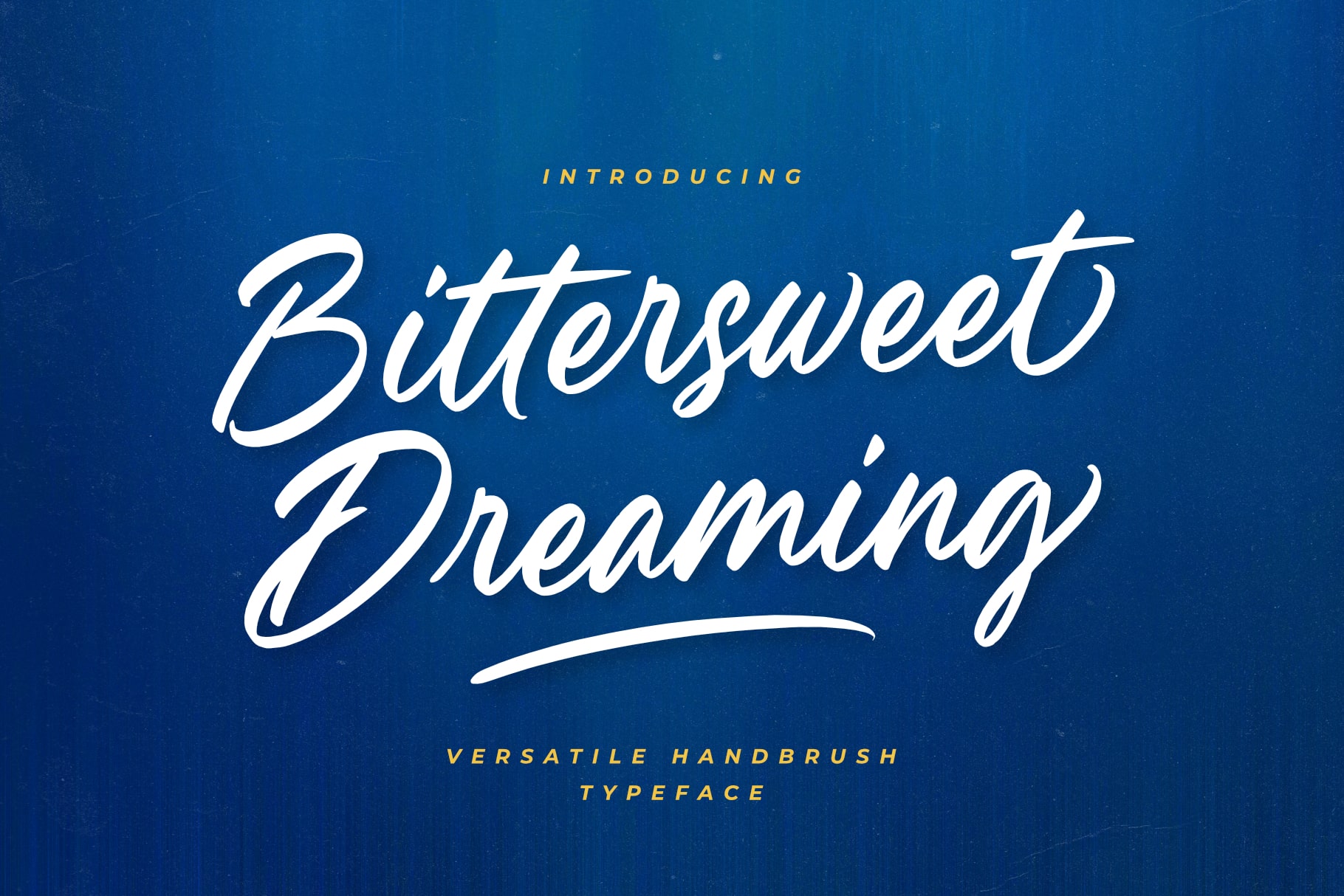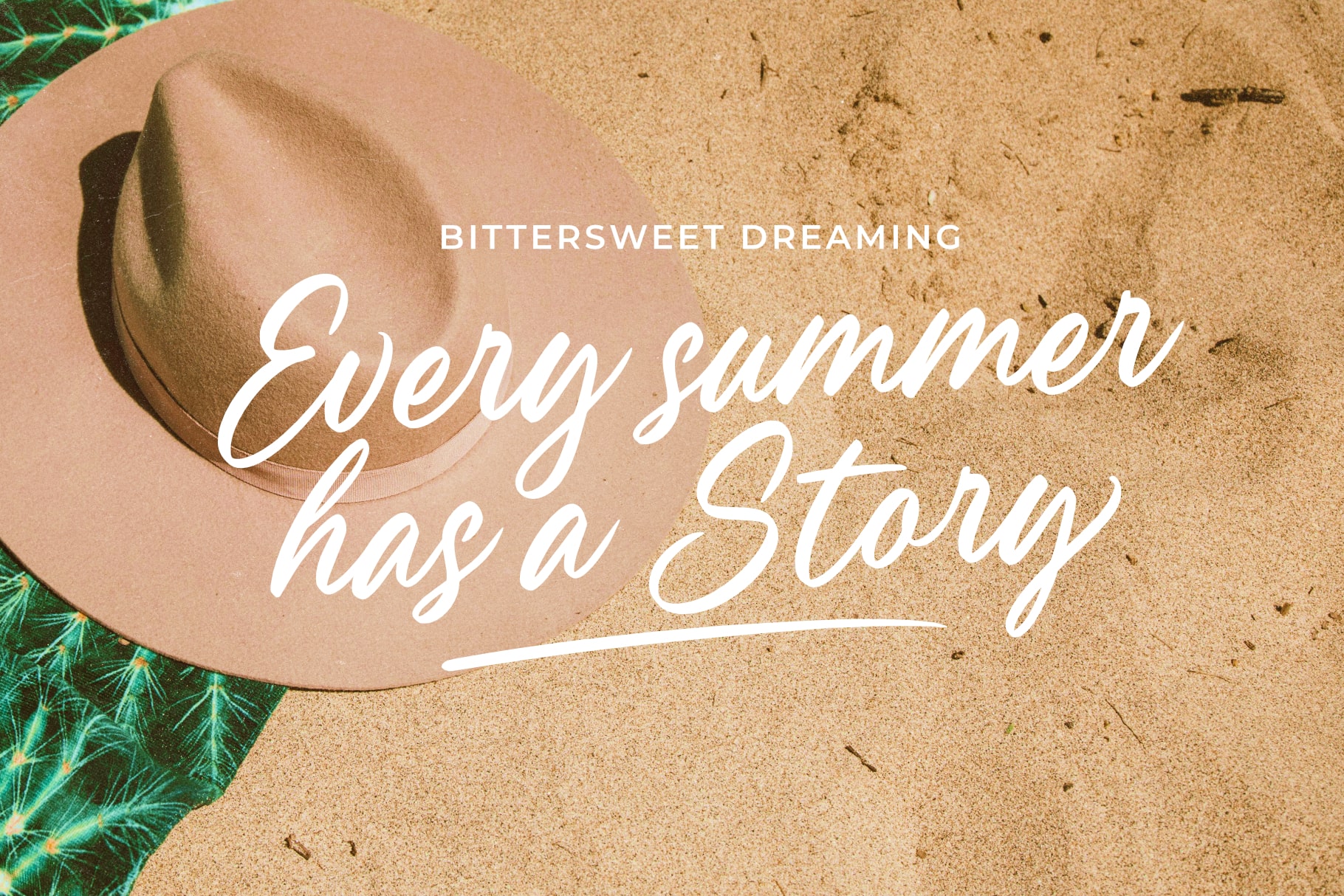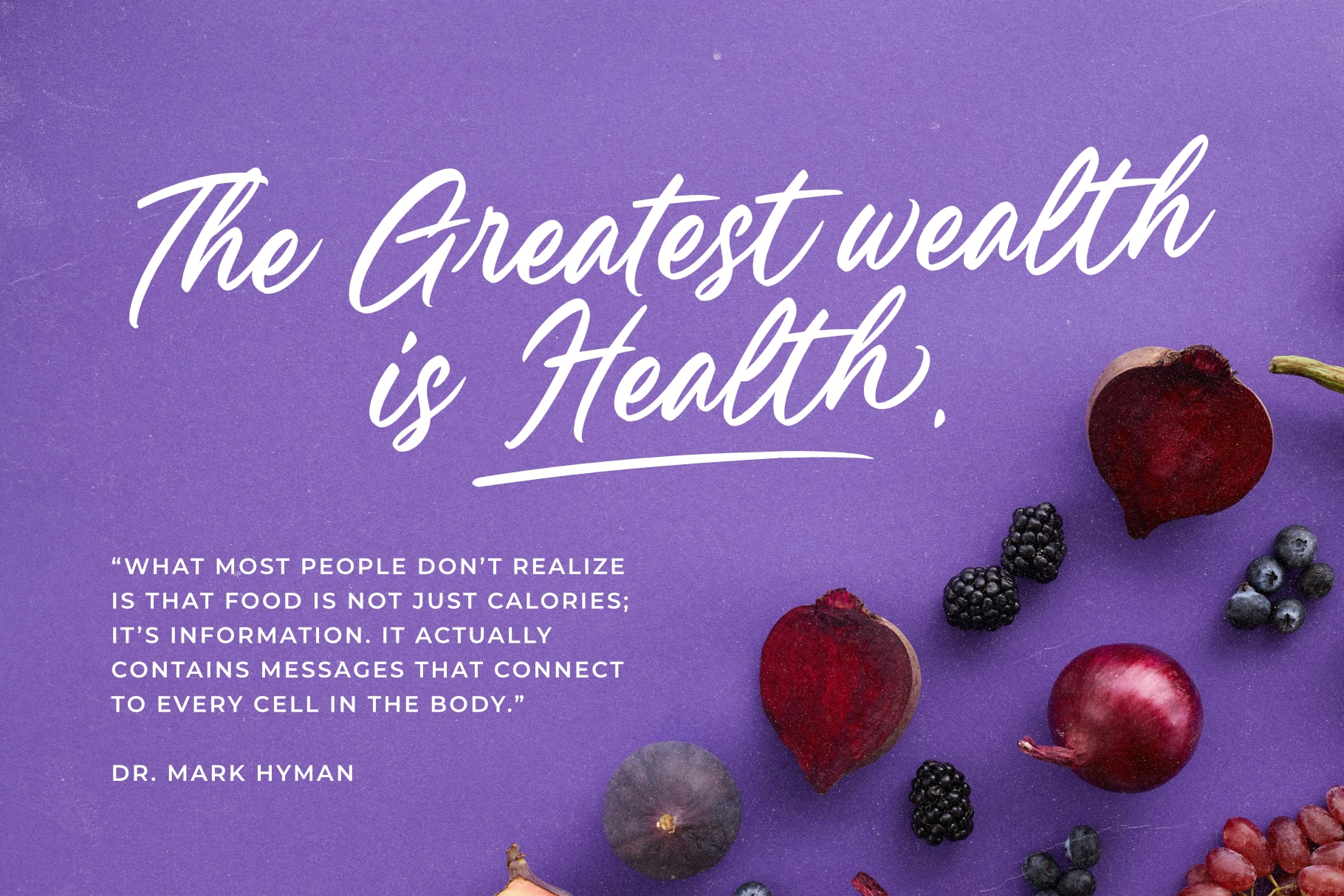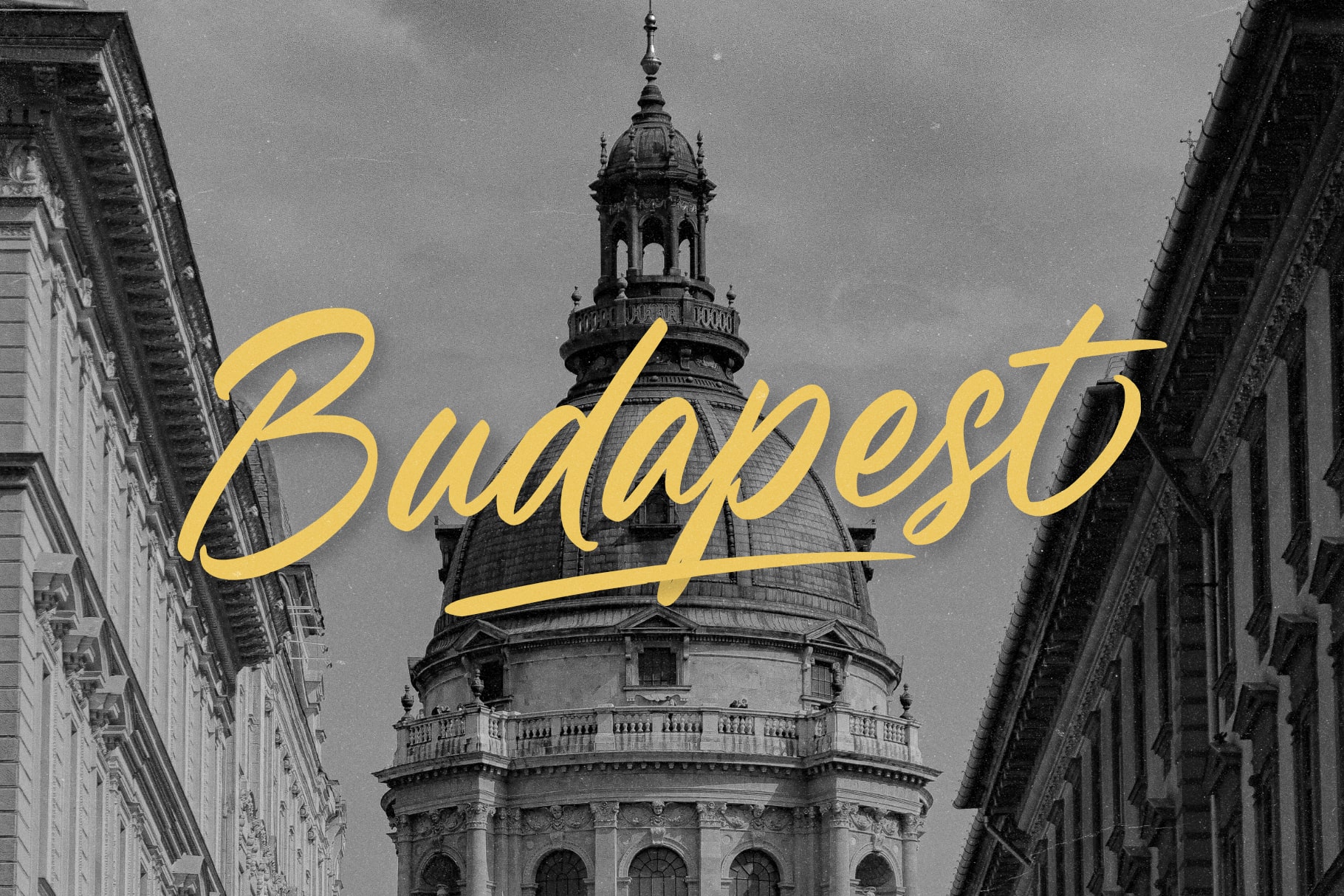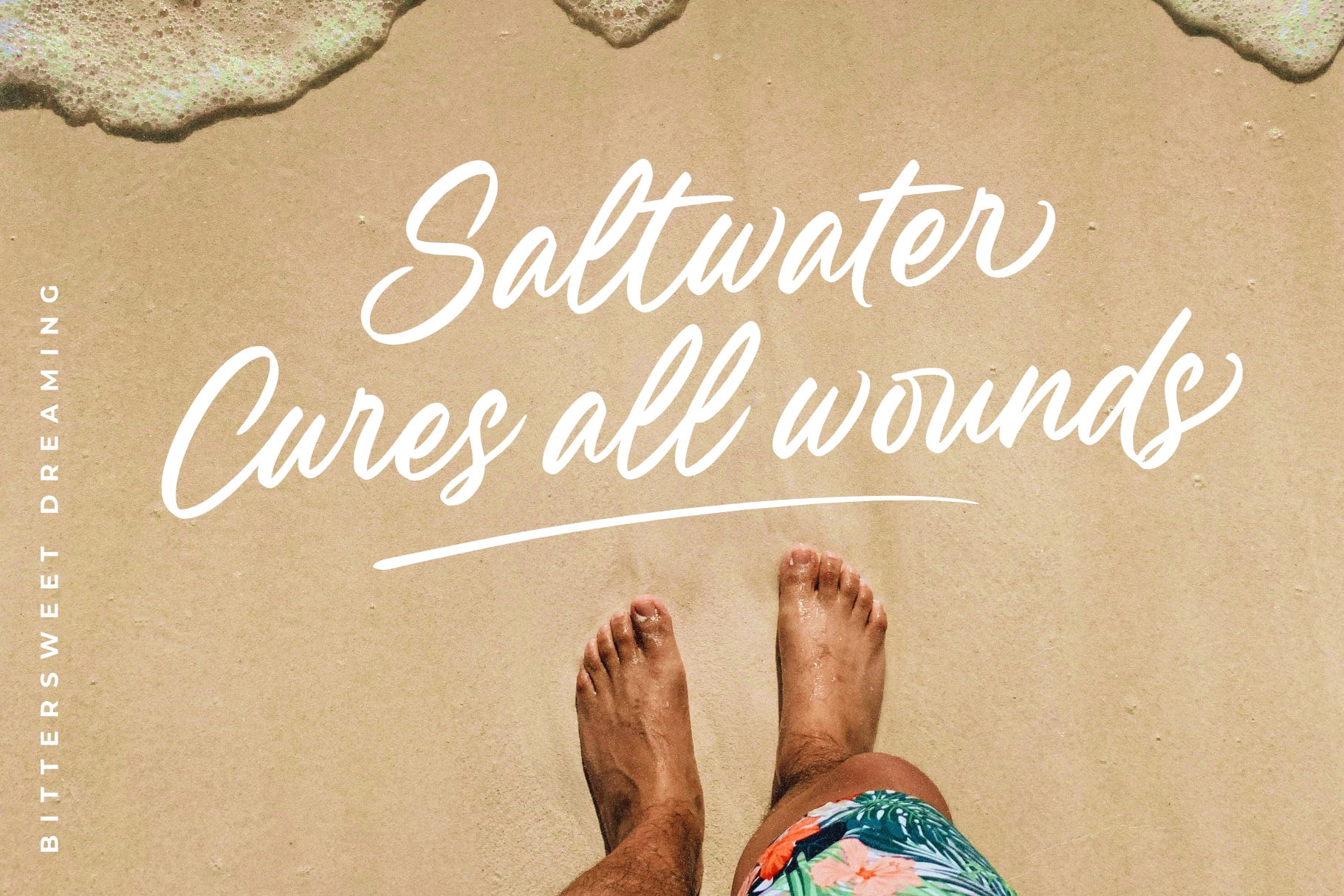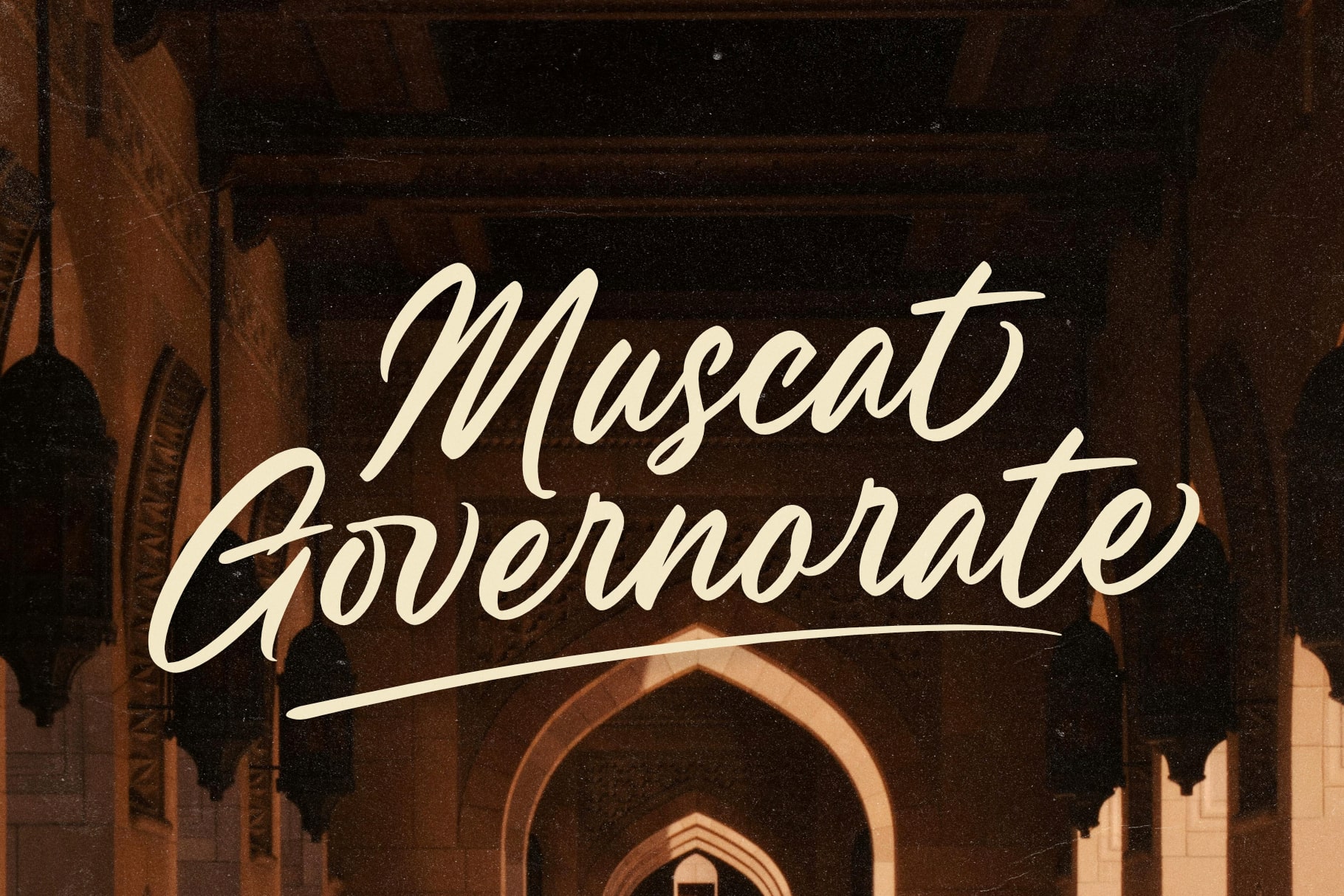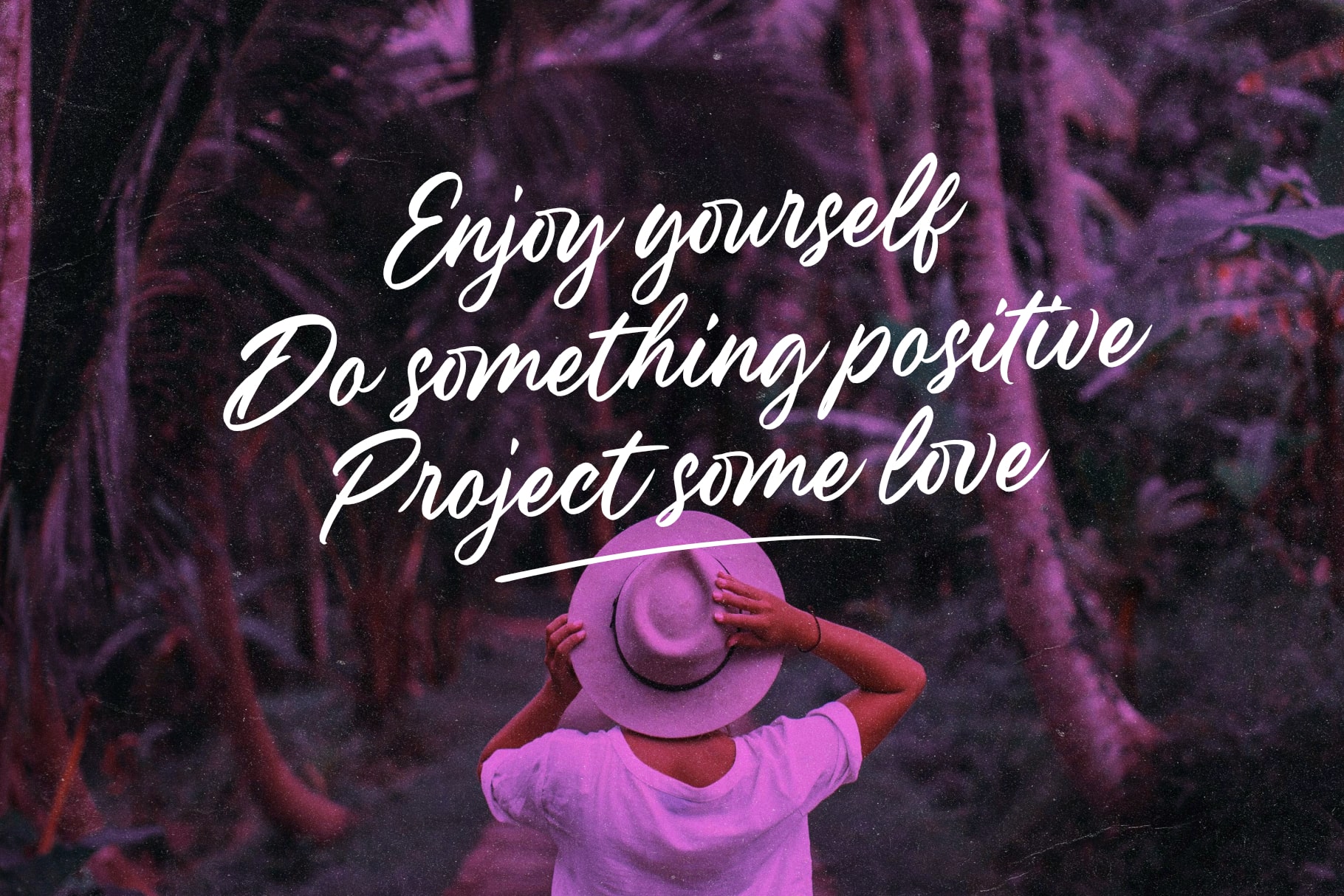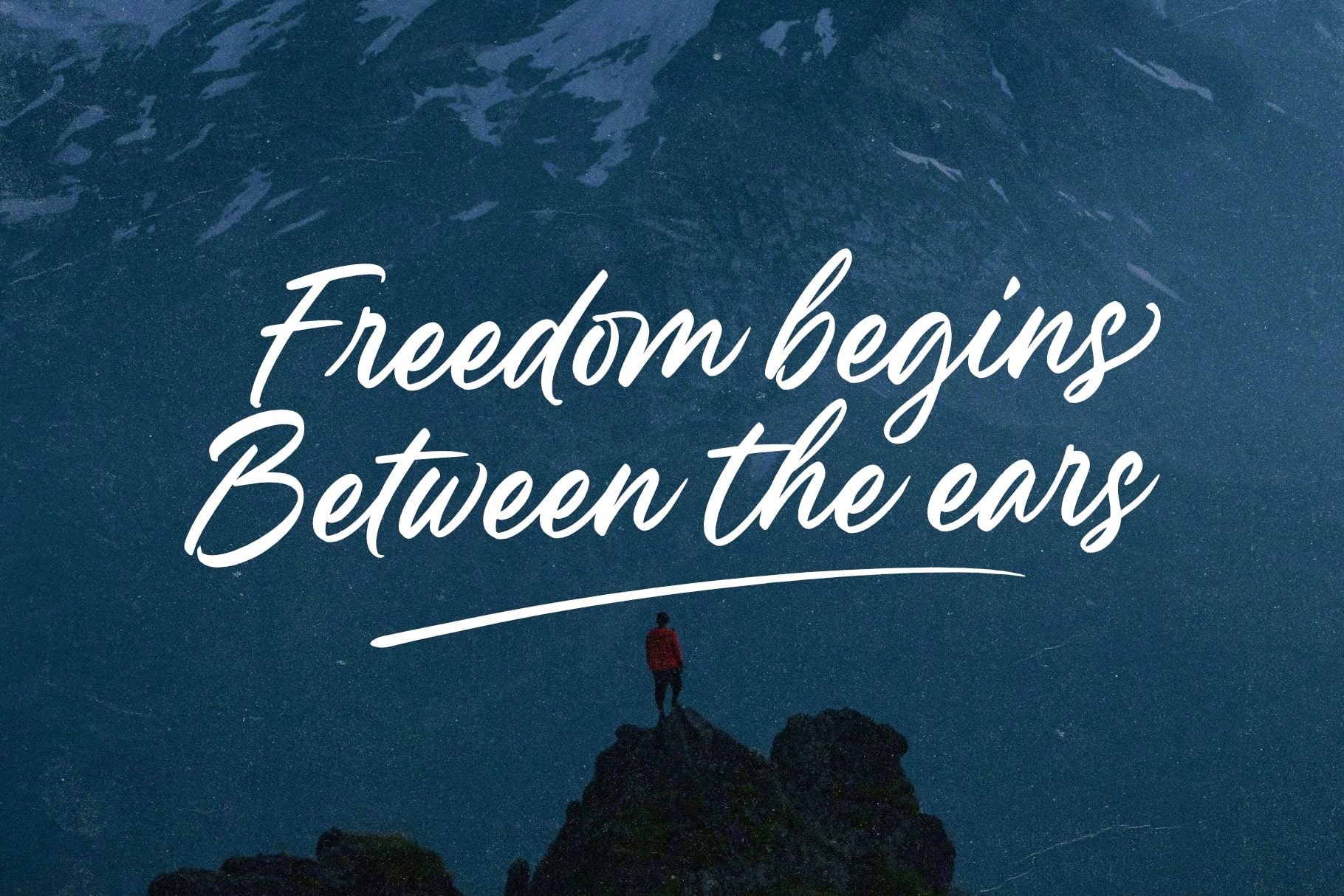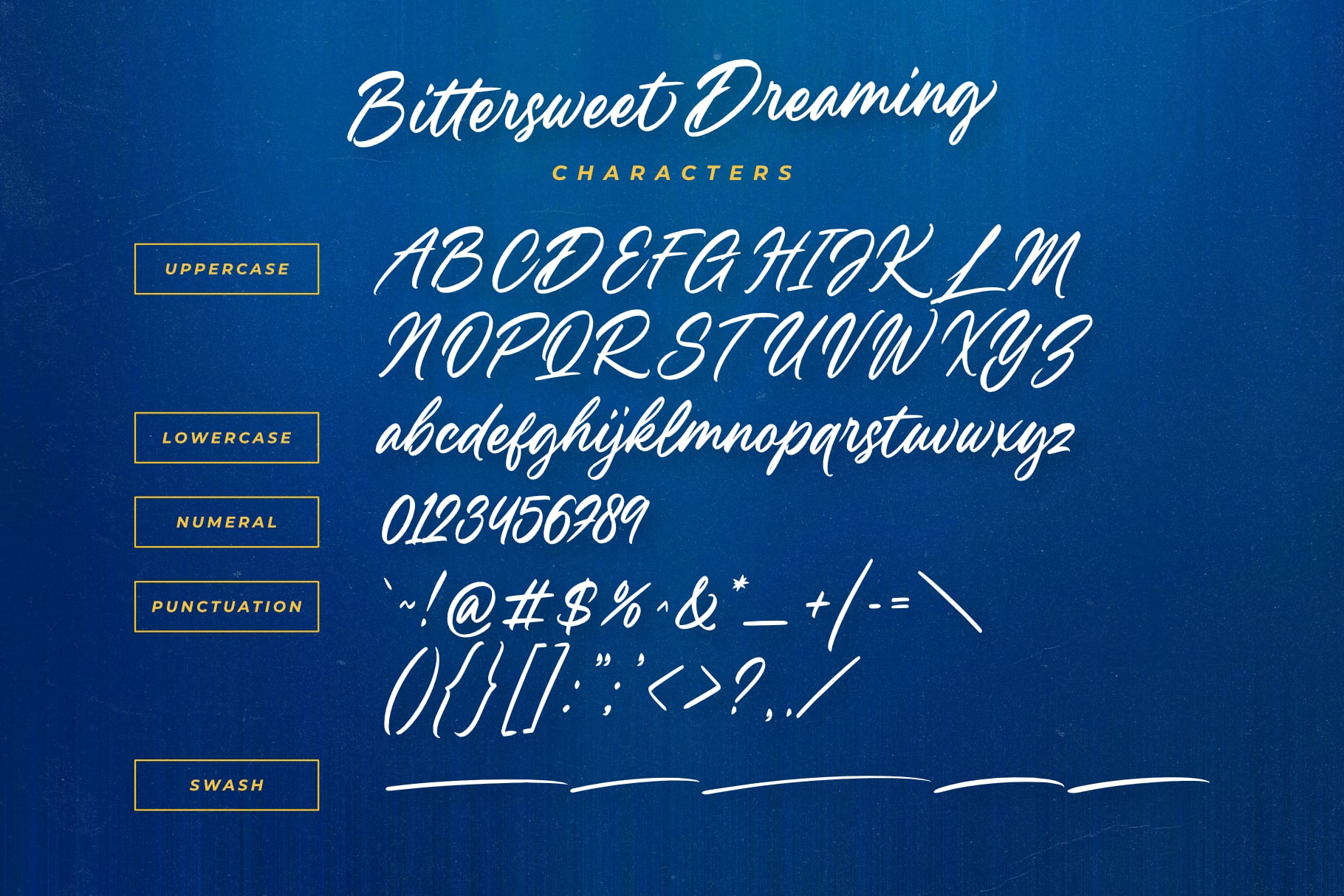
Bittersweet Dreaming
Bittersweet Dreaming is a versatile handbrush typeface that captures the essence of whimsy and wonder, perfect for adding a touch of magic to your designs.